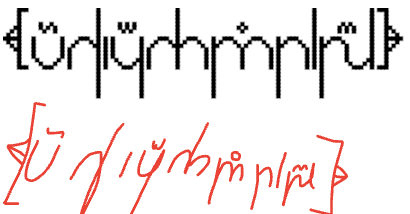
• (Both Urvanian fonts are cloneable and downloadable.) Urvanian is an abugida-related language spoken by the Urvana (singular: Urvanum) in a galaxy approximately 3.2 billion light-years away. The derivation of the name "Urvanian" is the word "curve" (without the C), since the letters are mostly curves. Some letters resemble Latin letters (u, o, n, m, l, w). There are even a few diacritics (vowels)! The letters do not have any pronunciation at all. Even the smartest researchers out there couldn't find out how even the first letter is pronounced. Yet I have the full language (consonants, vowels, modifiers)!
"Urvanian" in Urvanian
The first letter is an epiglottal trill
The first letter is an epiglottal trill. Prove me wrong.
Oops. It's the sj sound
Let's assign phonemes to the Urvanian alphabet and typs'fj́al-įdbey̧ec̄s̄?
aštạ́-mû̧n? (is somebody here?)